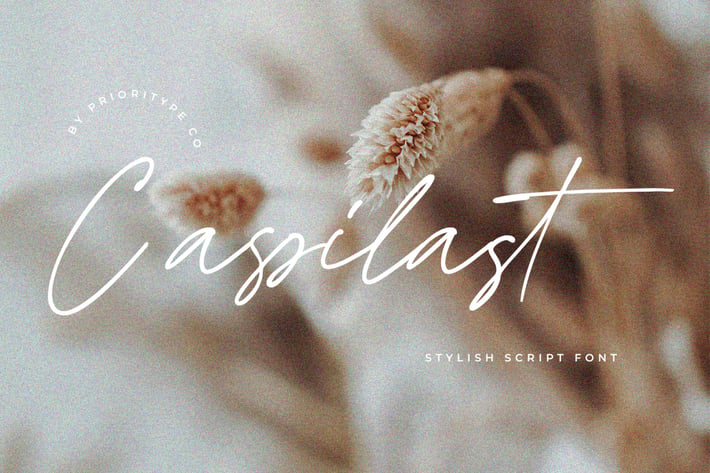
Cassilast - Stylish Script Font
Experience the allure of Cassilast. A signature font blending luxury and modernity. Perfect for branding, logos, invitations, and quotes. Cassilast boasts stunning features that captivate.
Features: Uppercase, Lowercase, Numeral, Punctuation, Multilingual & Ligatures.
* Multilingual contained: Afrikaans, Albanian, Asu, Basque, Bemba, Bena, Breton, Catalan, Chiga, Cornish, Danish, Dutch, English, Estonian, Filipino, Finnish, French, Friulian, Galician, German, Gusii, Indonesian, Irish, Italian, Kabuverdianu, Kalenjin, Kinyarwanda, Luo, Luxembourgish, Luyia, Machame, Makhuwa-Meetto, Makonde, Malagasy, Manx, Morisyen, North Ndebele, Norwegian Bokmål, Norwegian Nynorsk, Nyankole, Oromo, Portuguese, Quechua, Romansh, Rombo, Rundi, Rwa, Samburu, Sango, Sangu, Scottish Gaelic, Sena, Shambala, Shona, Soga, Somali, Spanish, Swahili, Swedish, Swiss German, Taita, Teso, Uzbek (Latin), Volapük, Vunjo, Zulu.